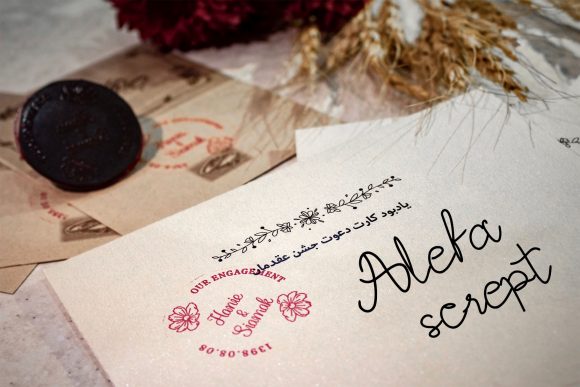
In a digital world clamoring for attention, your brand's voice yearns to be heard. Amidst the cacophony of visual noise, your message deserves a symphony of elegance and charm. Alefa Font, a script font crafted by the visionary minds at Syakaltype, emerges as your virtuoso conductor, orchestrating a visual masterpiece that captivates and enchants.
Immerse yourself in the ethereal beauty of Alefa. Its slender strokes, reminiscent of a dancer's graceful movements, infuse your designs with a sense of delicate femininity. Each letterform, meticulously shaped with precision, exudes a vibrant energy, as if imbued with the spirit of life itself. Experience the transformative power of Alefa as it elevates your creations to new heights of sophistication.
Unleash your creativity and embrace the boundless possibilities of Alefa Font. Its versatility knows no bounds, adapting effortlessly to a myriad of design endeavors. Whether you're crafting alluring blog logos that beckon for clicks, designing elegant wedding invitations that evoke timeless romance, or conjuring enchanting social media graphics that ignite engagement, Alefa Font stands as your steadfast companion, enhancing your vision and amplifying your message.
With Alefa Font, you gain an artistic ally that transcends mere aesthetics. Its innate charm and charisma breathe life into your designs, captivating your audience with its inherent allure. Prepare to witness the transformation as your creations metamorphose into captivating works of art, attracting eyes and igniting imaginations.
Let Alefa Font serenade your designs, weaving its magical spell upon your creations. Its timeless appeal transcends fleeting trends, ensuring that your designs endure as beacons of elegance and sophistication. Embrace the symphony of beauty that awaits, and embark on a creative journey where your imagination knows no limits.